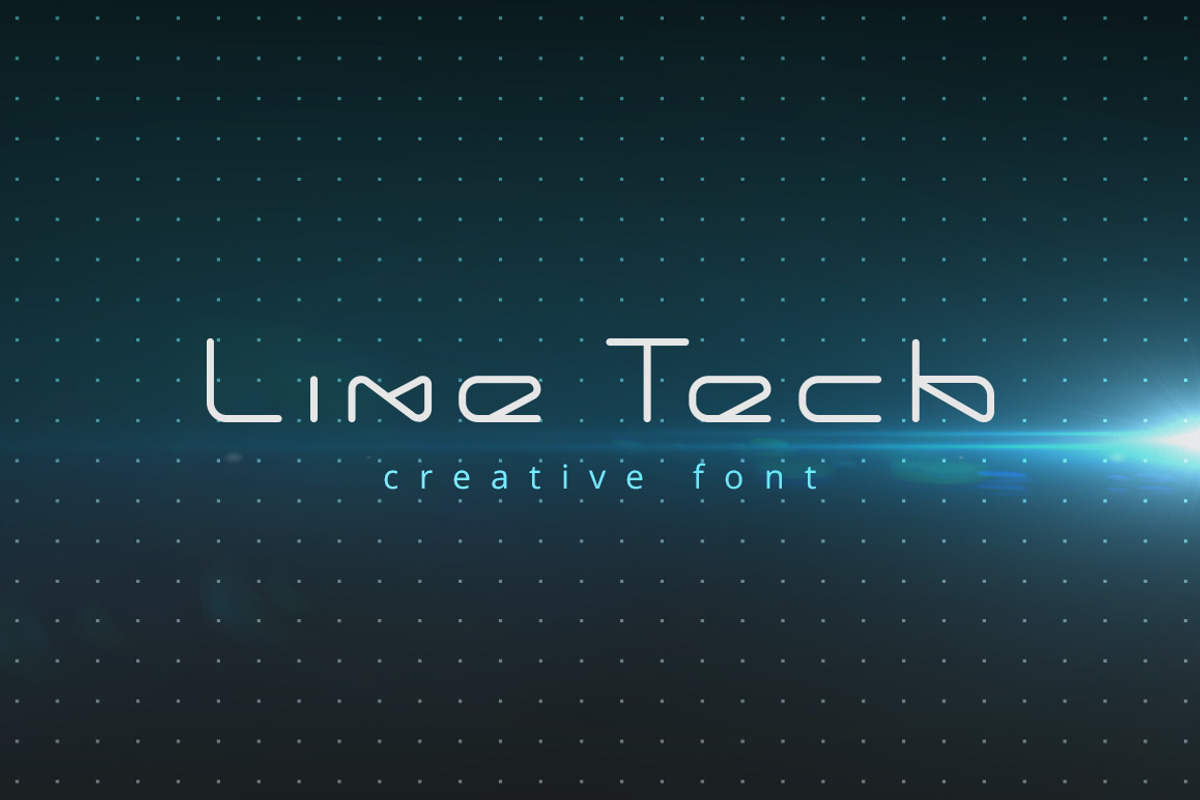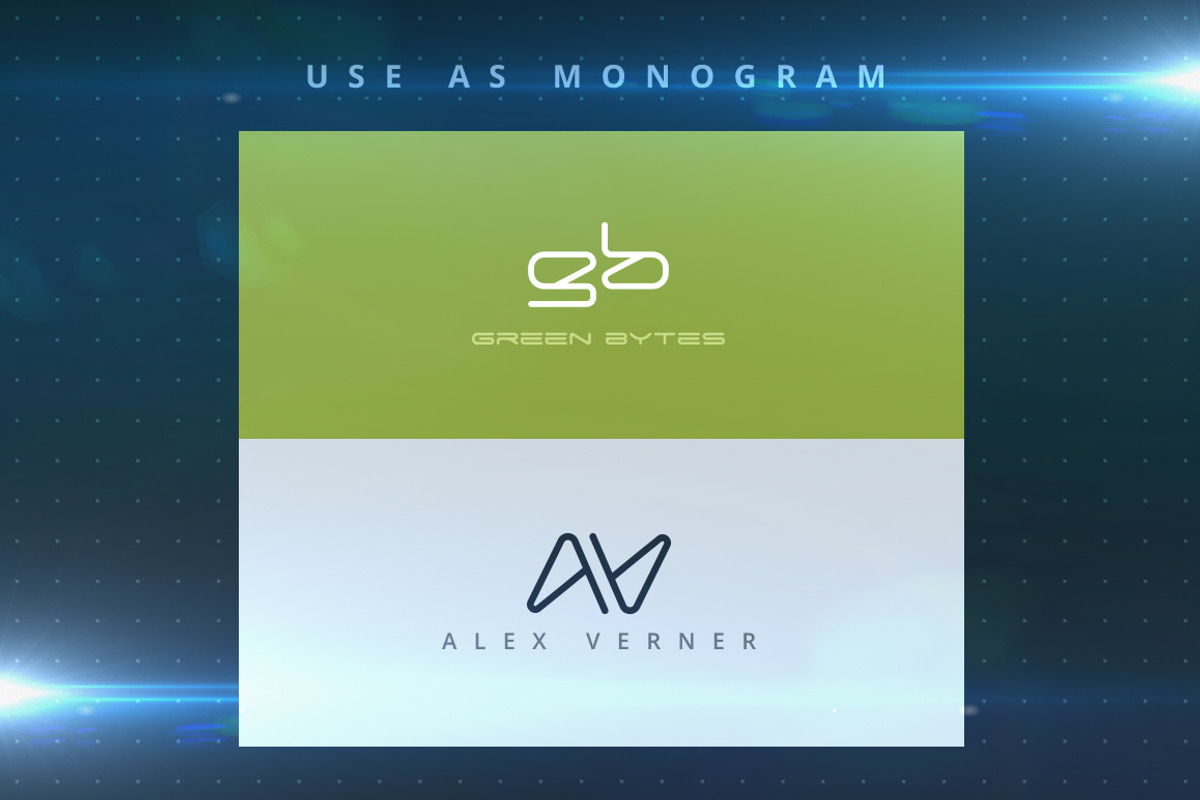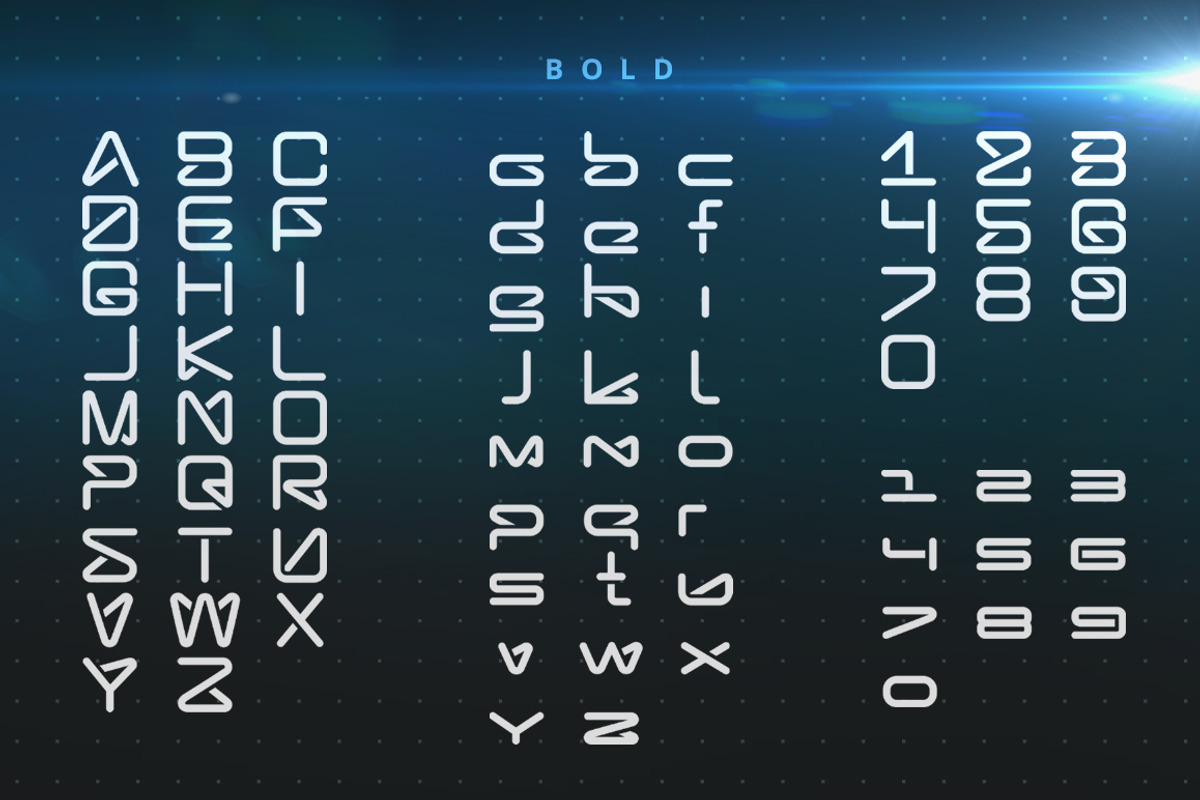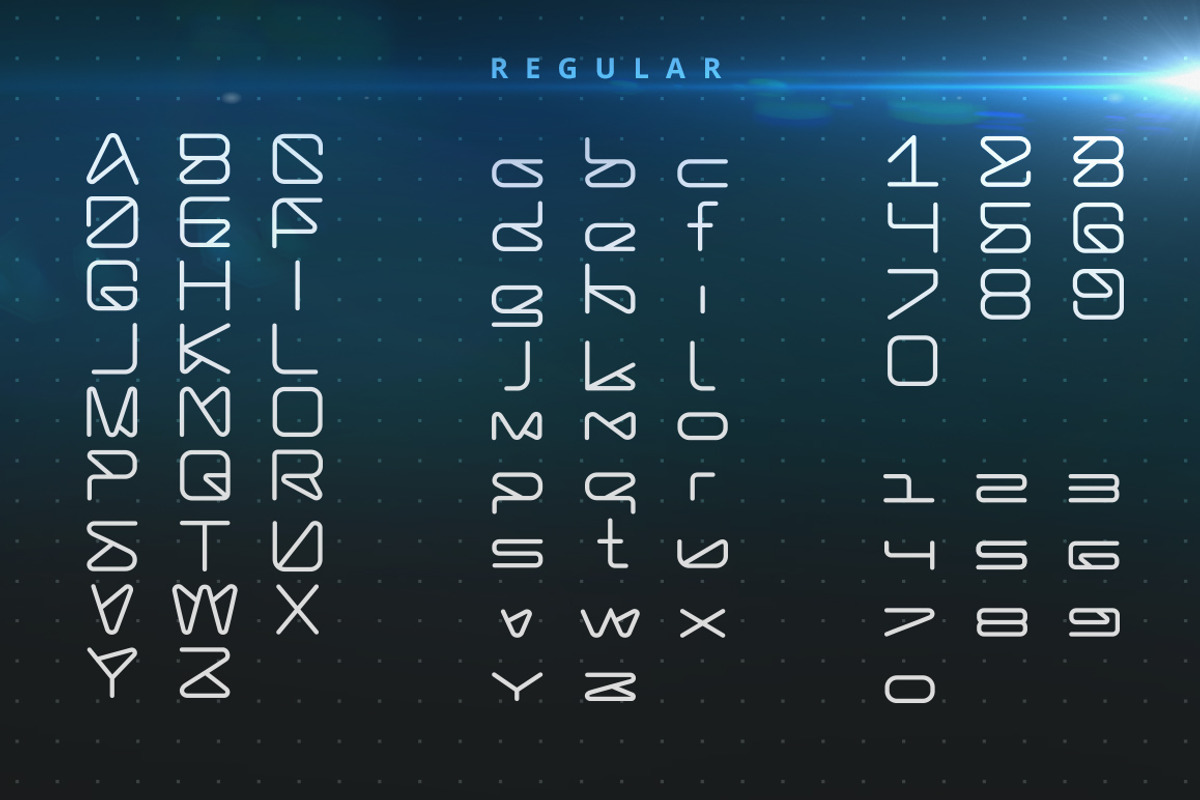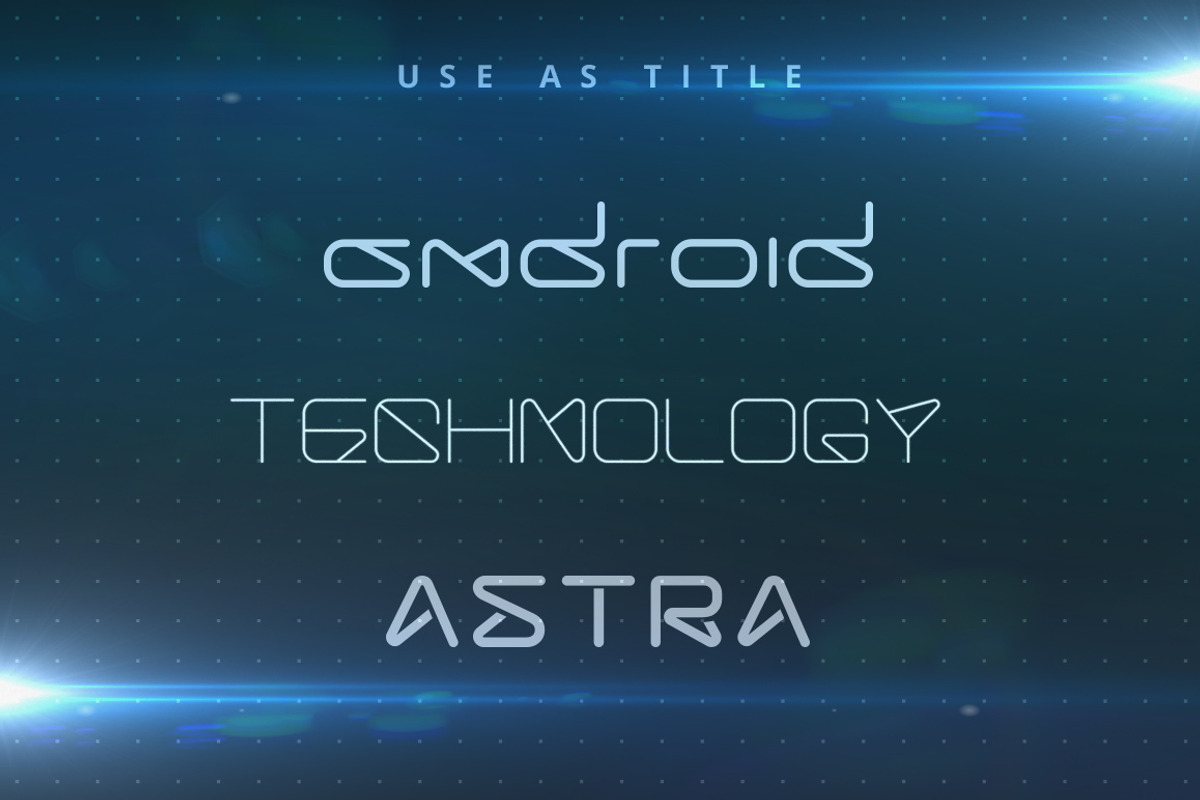
LineTech futuristic technology font
LineTech futuristic technology font by Sentavio is a font selected for branding, posters, packaging, typography.
- It contains three versions: Bold, Regular, Light Use it for Technology, Science, Web, Computer areas.
LineTech futuristic technology font by Sentavio fits naturally into Branding, posters, packaging, typography.